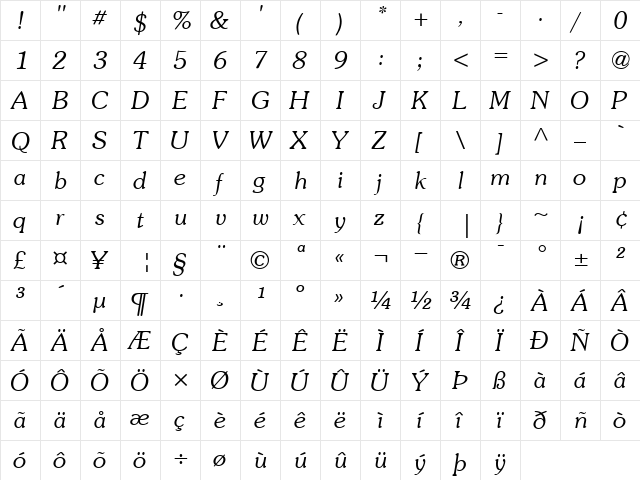
ITCSouvenir-Light LightItalic Font Preview
Design Context for ITCSouvenir-Light Typeface
ITCSouvenir-Light takes a measured approach to typography — its balanced proportions and neutral character make it a reliable workhorse for both digital and print work. Its italic angle brings a sense of urgency and motion to the letterforms. Its slender proportions lend an understated elegance to any composition.
Pro Tip: Try ITCSouvenir-Light for annotation and caption copy alongside an upright companion — the contrast in angle creates a dynamic but ordered typographic system.